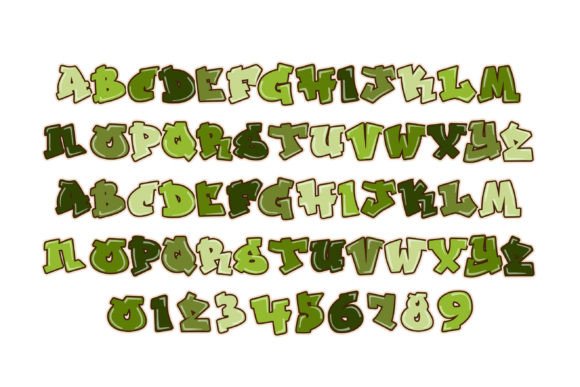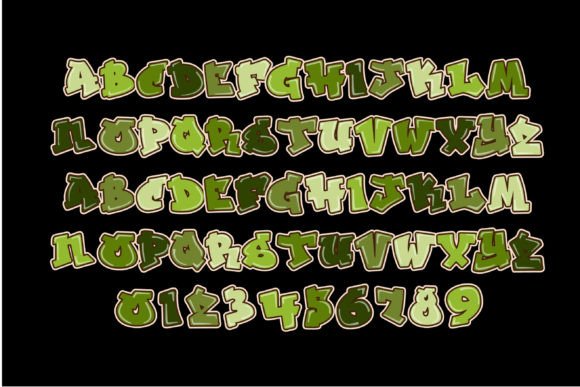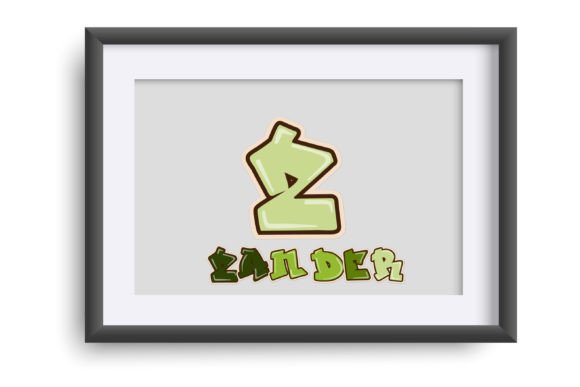
Introduction to Hip Hooligan Font
As a designer, have you ever stumbled upon that perfect font that makes your creative project stand out from the crowd? For me, it’s that moment when everything comes together – colors, shapes, and typography. It’s like a spark of magic that sets your imagination ablaze. I recently discovered the Hip Hooligan Font, and I’m excited to share its charm with you.
About the Hip Hooligan Font
With its playful shapes and quirky details, the Hip Hooligan Font is a modern and unique design resource that perfectly captures the spirit of St. Patrick’s Day. Whether you’re working on a free download project or a high-quality commercial design, this font is sure to add a fun and festive touch. Its PUA encoding also makes it easy to access all the glyphs and swashes, giving you complete creative freedom.
Why Designers Love the Hip Hooligan Font
The Hip Hooligan Font is a valuable resource for designers who want to add a personal touch to their projects. Its transparent background and high-quality design make it perfect for use on images with complex backgrounds. With its wide range of glyphs and swashes, you can create stunning designs that truly stand out from the crowd. Whether you’re working on a creative project or just need a fun font to spice up your design, the Hip Hooligan Font is an excellent choice.
Key Features of Hip Hooligan Font
- High-quality design resource perfect for creative projects, available for free download.
- Unique, bold, and playful font style ideal for making a statement in your design.
- Features a transparent background, allowing for easy layering and customization in your design project.
- Available in a single weight, making it easy to use and style in your creative project.
- Designed with a high-resolution pixel density, ensuring crisp and clear text even at large sizes.
- Packed with a full character set, including uppercase and lowercase letters, numbers, and punctuation.
Honest Review: Hip Hooligan Font
I recently stumbled upon the Hip Hooligan Font while searching for a unique design resource for a creative project. I was immediately drawn to its quirky, laid-back vibe. One of the standout features of this font is its high quality, which is evident even at large font sizes.
- ✨ Unique and quirky design that adds a touch of personality to any project
- ✨ Compatible with a wide range of creative projects, from posters to social media graphics
- ✨ Includes a transparent background, making it easy to overlay on top of images or other design elements
While the Hip Hooligan Font has a lot to offer, there are a few limitations to consider. For example:
- ⚠️ Limited character set, which may make it less suitable for projects that require a wide range of characters
- ⚠️ May not be suitable for professional or corporate branding, as its quirky design may not be taken seriously
Overall, I’m impressed with the Hip Hooligan Font and would recommend it to designers looking for a fun and creative design resource. Just be sure to consider its limitations before using it in your project.
Tips for Getting the Most Out of Hip Hooligan Font
Use the Hip Hooligan Font on a transparent background to give your design a high-quality, professional look. Experiment with different font sizes and styles to add depth and interest to your design. This font is perfect for creative projects, such as posters, flyers, and social media graphics.
The Hip Hooligan Font is ideal for designing logos, branding materials, and marketing collateral. It’s also great for creating social media graphics, blog posts, and email newsletters. With its high-quality design and versatility, the Hip Hooligan Font is a valuable design resource for any creative project.